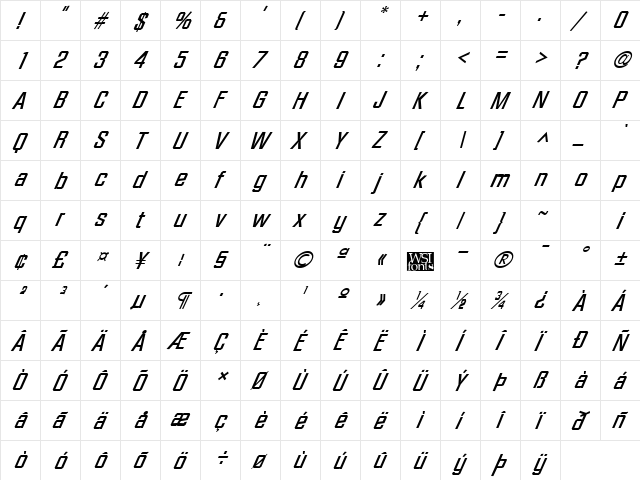
Facet-XXitalic Bold
Design Context for Facet-XXitalic Typeface
Facet-XXitalic takes a measured approach to typography — its balanced proportions and neutral character make it a reliable workhorse for both digital and print work. Its italic angle brings a sense of urgency and motion to the letterforms. The heavy weight commands attention and anchors typographic hierarchies.
Pro Tip: Use Facet-XXitalic for emphasis, pull quotes, and subheadings where its slanted energy can add rhythm to the layout.